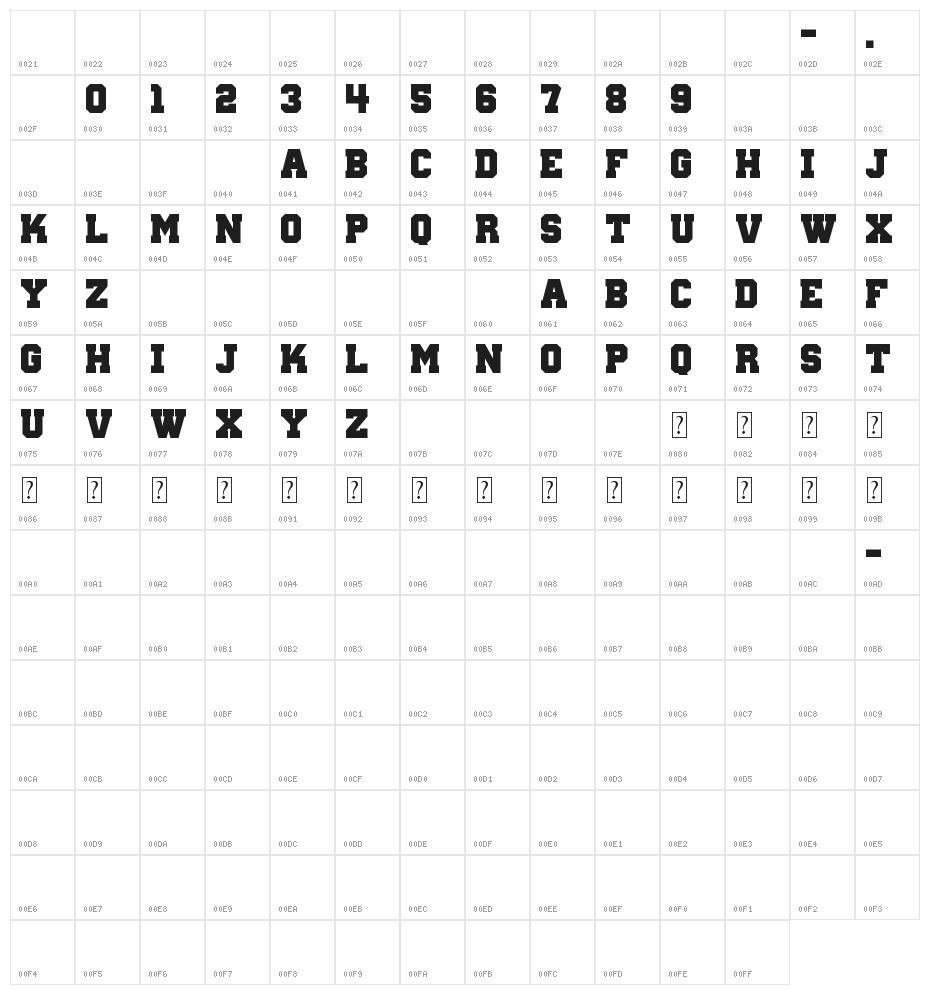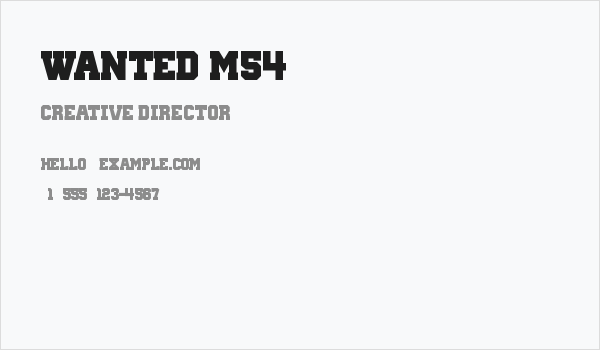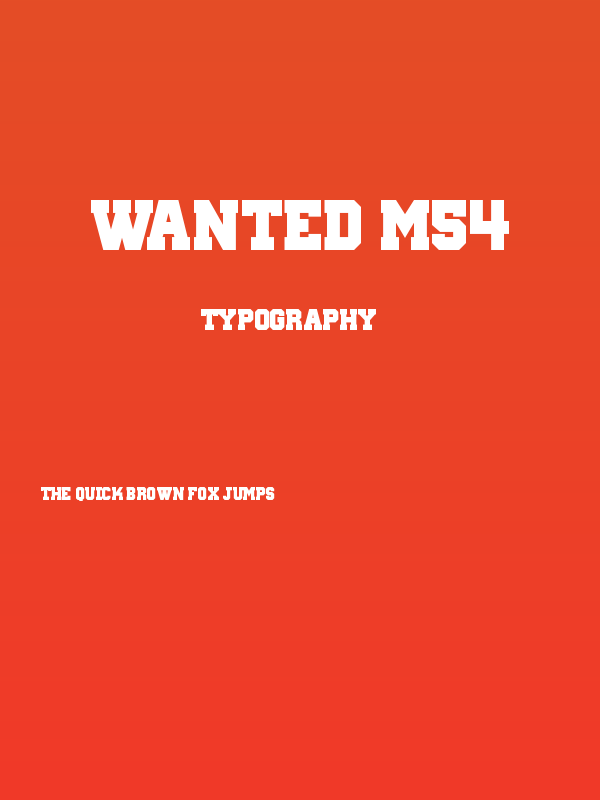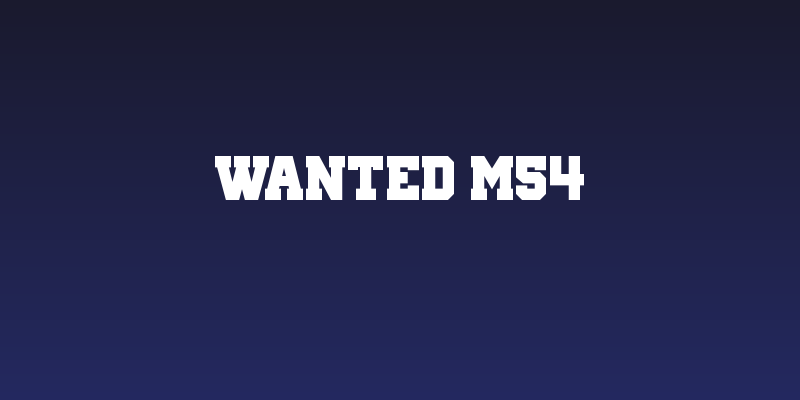
Wanted M54 Font
Wanted M54 Description
This font is a bold, decorative typeface with a strong, impactful presence. The characters are blocky and robust, featuring thick strokes and a uniform weight throughout. The design is reminiscent of old Western-style typography, often associated with wanted posters or vintage signage. The uppercase letters are particularly striking, with sharp angles and a commanding appearance. The numbers follow the same bold style, ensuring consistency across all characters. This font is designed to grab attention and make a statement, making it ideal for headlines or display purposes.
| Proposed Projects | Ideal for posters, branding, signage, and any project requiring a strong, vintage aesthetic. |